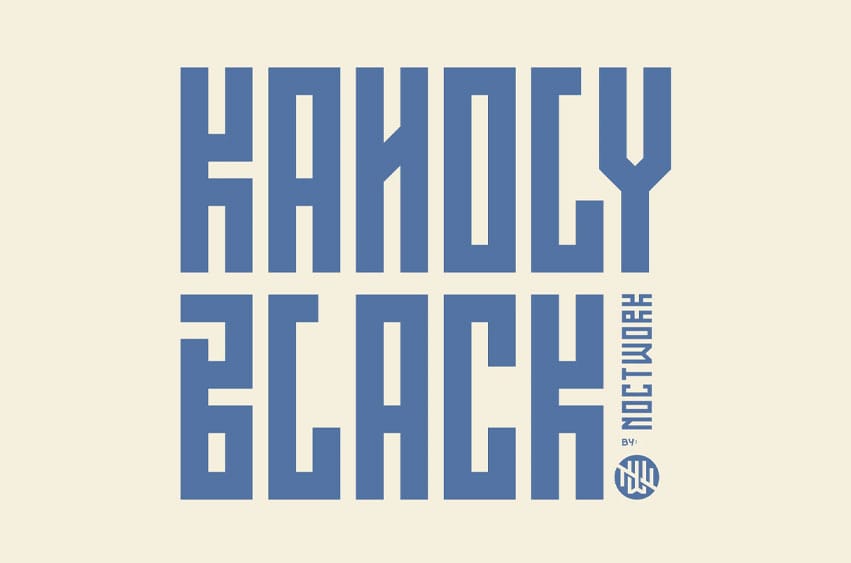
Kaholy Black Font Condensed Font is a suitable typeface for various purposes like logotype, signage, label, poster, dropcap, titles, letterhead, book cover and etc.
- Features: Small-Caps, Salt, Calt.
- Includes a range of multilingual characters.